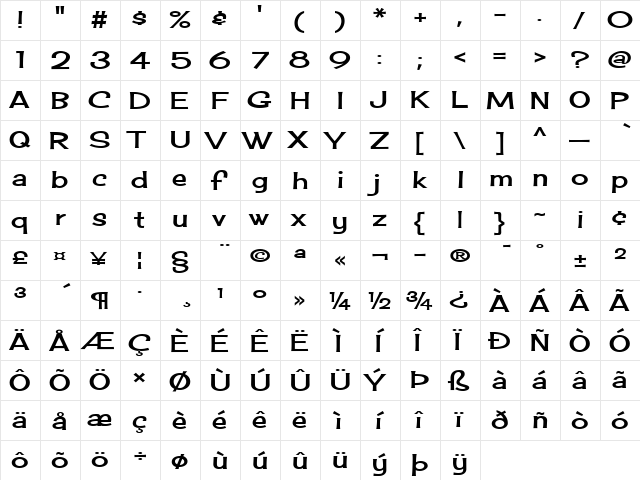
Cherry Cream Soda Regular
| Foundry | Font Diner, Inc |
| Designer | Font Diner, Inc |
| Year | 2010 |
Design Context for Cherry Cream Soda Typeface
Cherry Cream Soda is a composed and adaptable typeface that performs quietly and consistently across a wide range of design contexts.